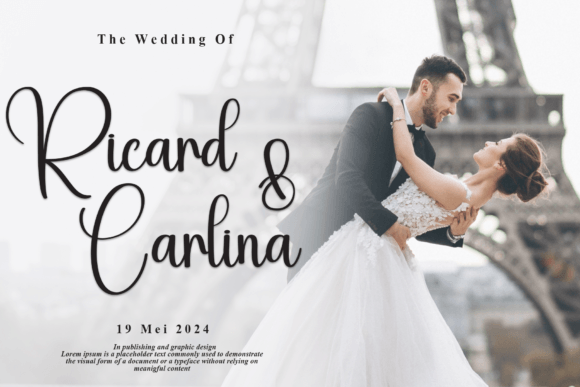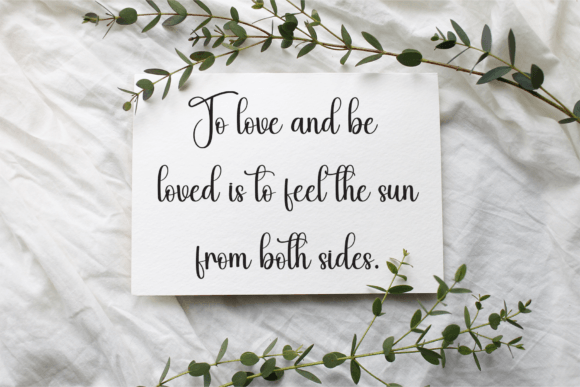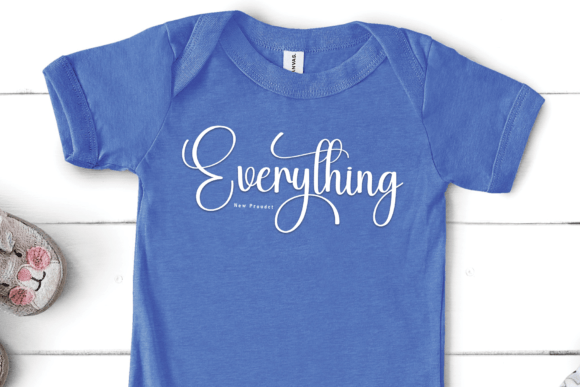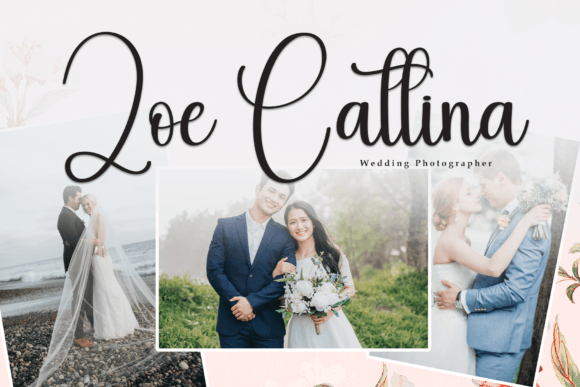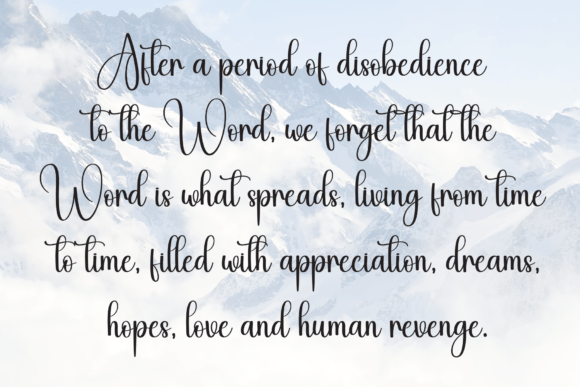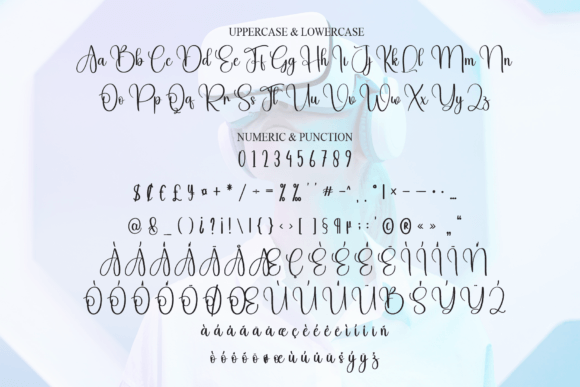
Introducing Digital: The Charming Handwritten Font for Your Designs
In the world of digital design, typography plays a crucial role in conveying the tone and personality of a brand or project. When it comes to creating a warm and inviting atmosphere, a well-crafted handwritten font can make all the difference. This is where Digital comes in – a charming handwritten font that brings a sweet, personal touch to your designs.
The Characteristics of Digital
Digital is a beautifully crafted font that boasts smooth, flowing strokes and a friendly character. Its unique charm lies in its ability to evoke a sense of warmth and coziness, making it perfect for a variety of design applications. Whether you’re creating invitations, greeting cards, or branding materials, Digital is the ideal choice for adding a personal touch.
Perfect for Invitations and Greeting Cards
Invitations and greeting cards are special occasions that call for a personal and thoughtful approach. Digital’s charming handwritten style makes it an excellent choice for these types of projects. The font’s smooth strokes and friendly character will add a touch of warmth and personality to your designs, making them truly special. Imagine sending out wedding invitations or birthday cards with a font that feels like it was written with love and care.
Cozy Branding with Digital
Branding is all about creating a unique identity that resonates with your target audience. Digital’s charming font can help you achieve this goal by adding a touch of warmth and personality to your brand. Whether you’re a small business owner or a crafty entrepreneur, Digital is the perfect choice for creating a cozy and inviting brand image. Use it for your logo, packaging, or marketing materials to create a consistent and recognizable brand voice.
Why Choose Digital?
So, what sets Digital apart from other fonts? Here are just a few reasons why designers and crafters love this charming handwritten font:
- Unique charm: Digital has a one-of-a-kind personality that will add a touch of warmth and personality to your designs.
- Smooth strokes: The font’s smooth strokes create a sense of fluidity and elegance, making it perfect for a variety of design applications.
- Friendliness: Digital’s friendly character makes it perfect for creating a welcoming and inviting atmosphere in your designs.
- Versatility: Use Digital for invitations, greeting cards, branding, and more – the possibilities are endless!
Tips for Using Digital in Your Designs
Now that you’ve fallen in love with Digital, here are some tips for incorporating it into your designs:
- Pair it with other fonts: Combine Digital with other fonts to create a unique and visually appealing typography combination.
- Experiment with colors: Try out different colors and textures to add depth and interest to your designs.
- Use it for headings and titles: Digital is perfect for headings and titles, but don’t be afraid to use it for body text too!
- Make it your own: Add your own personal touch to Digital by adjusting the font size, style, and spacing to fit your design needs.
In conclusion, Digital is a charming handwritten font that brings a sweet, personal touch to your designs. With its smooth, flowing strokes and friendly character, it’s perfect for invitations, greeting cards, and cozy branding. Whether you’re a designer, crafter, or small business owner, Digital is the ideal choice for adding warmth and personality to your projects. So why wait? Give Digital a try today and see the difference it can make in your designs!